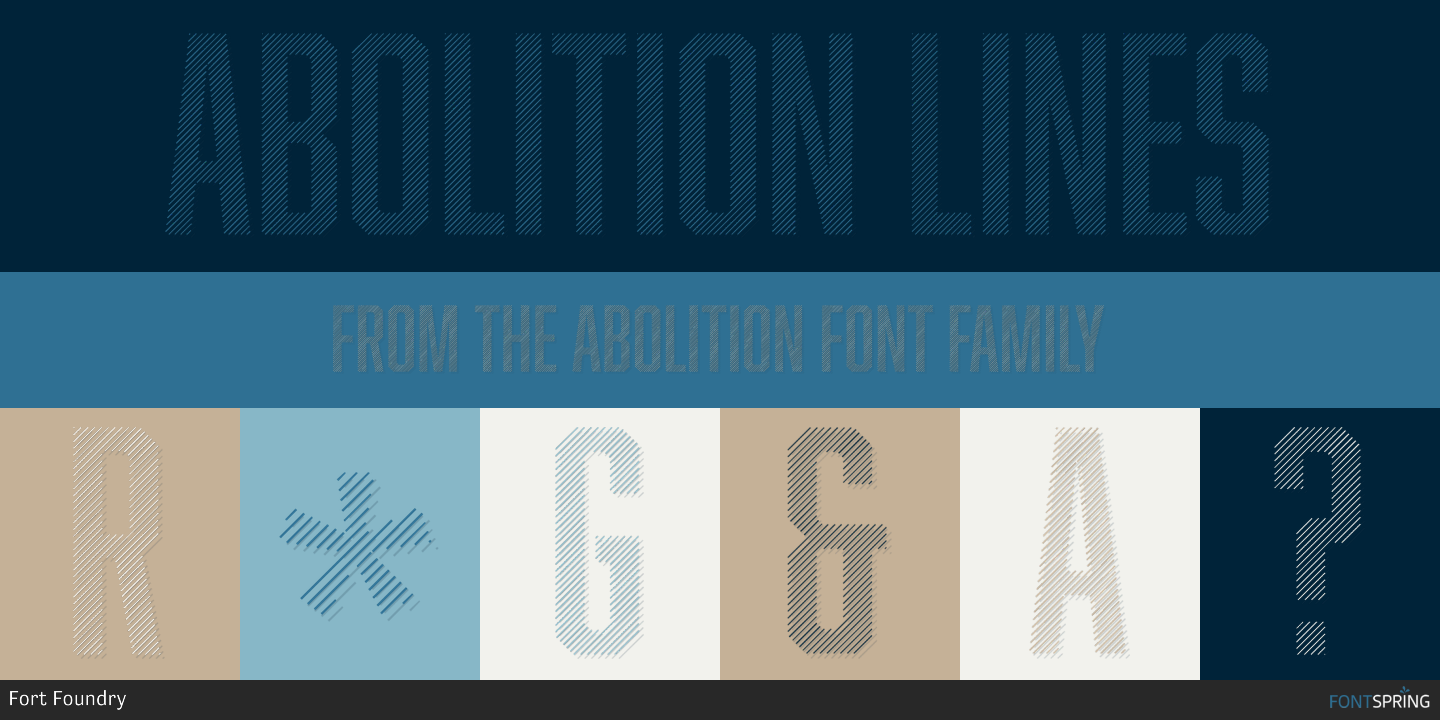
A sans serif typeface with 4 styles, available from adobe fonts for sync. Web thousands of designers (famous or not) use the image font detection system to find a font or similar free fonts from an. Browse by alphabetical listing, by style, by author or by popularity.
Abolition Font Dafont - Web archive of freely downloadable fonts. Web abolition is a condensed display typeface that’s got a knack for posters and industrial buildings. Browse by alphabetical listing, by style, by author or by popularity. A sans serif typeface with 4 styles, available from adobe fonts for sync. Web explore abolition designed by mattox shuler at adobe fonts.
Abolition Font Dafont - Web explore abolition designed by mattox shuler at adobe fonts. 22,534 downloads (5 yesterday) free for personal use. Web abolition w00 regular download is. Browse by alphabetical listing, by style, by author or by popularity. Web abolition is a condensed display typeface that’s got a knack for posters and industrial buildings.
Abolition Font Dafont - A sans serif typeface with 4 styles, available from adobe fonts for sync. Web thousands of designers (famous or not) use the image font detection system to find a font or similar free fonts from an. Web abolition is a condensed display typeface that’s got a knack for posters and industrial buildings. Browse by alphabetical listing, by style, by author.
Abolition Font Dafont - Web thousands of designers (famous or not) use the image font detection system to find a font or similar free fonts from an. 22,534 downloads (5 yesterday) free for personal use. Web explore abolition designed by mattox shuler at adobe fonts. Web abolition is a condensed display typeface that’s got a knack for posters and industrial buildings. A sans serif.
Abolition Font Dafont - Browse by alphabetical listing, by style, by author or by popularity. Web explore abolition designed by mattox shuler at adobe fonts. 22,534 downloads (5 yesterday) free for personal use. Web archive of freely downloadable fonts. Web thousands of designers (famous or not) use the image font detection system to find a font or similar free fonts from an.
Abolition Font Dafont - Web explore abolition designed by mattox shuler at adobe fonts. A sans serif typeface with 4 styles, available from adobe fonts for sync. Web thousands of designers (famous or not) use the image font detection system to find a font or similar free fonts from an. Web abolition w00 regular download is. Web abolition is a condensed display typeface that’s.
Abolition Font Dafont - Web archive of freely downloadable fonts. Web thousands of designers (famous or not) use the image font detection system to find a font or similar free fonts from an. Web abolition w00 regular download is. 22,534 downloads (5 yesterday) free for personal use. Browse by alphabetical listing, by style, by author or by popularity.
Abolition Font Dafont - 22,534 downloads (5 yesterday) free for personal use. Web explore abolition designed by mattox shuler at adobe fonts. Web archive of freely downloadable fonts. Browse by alphabetical listing, by style, by author or by popularity. Web abolition is a condensed display typeface that’s got a knack for posters and industrial buildings.